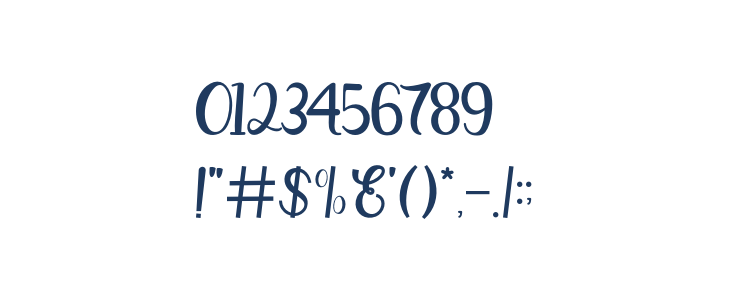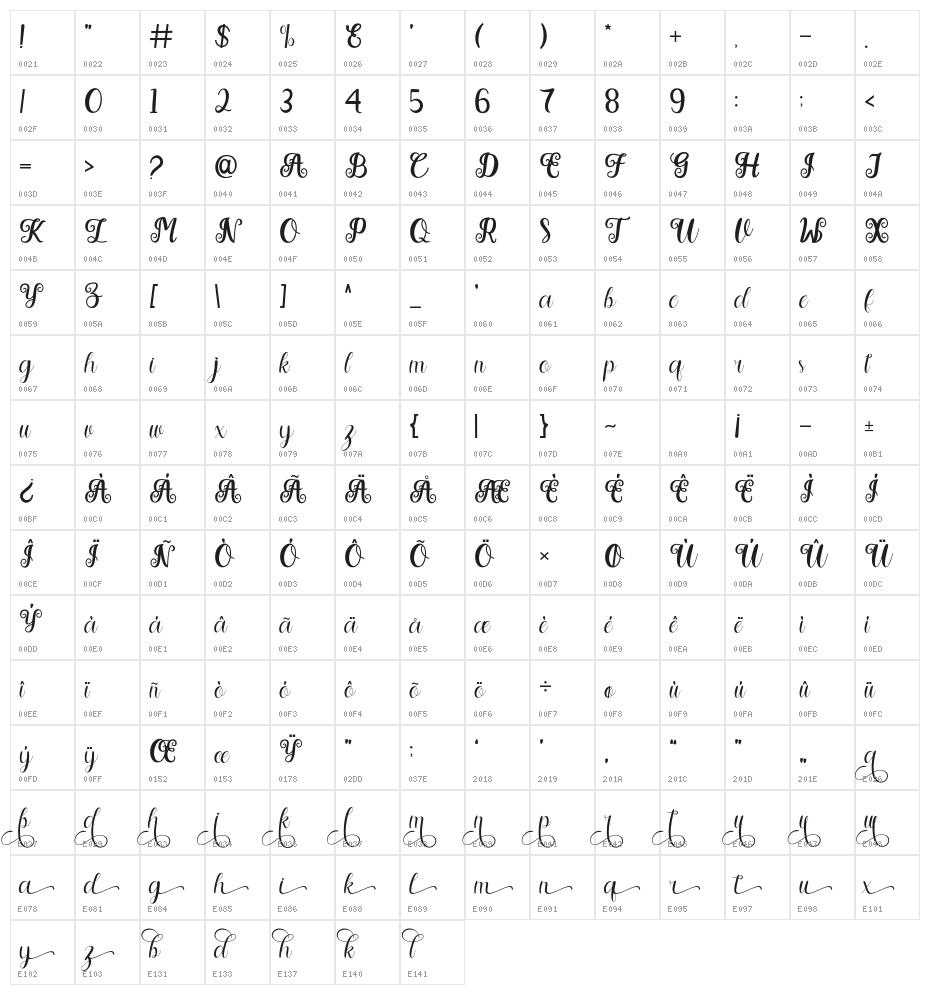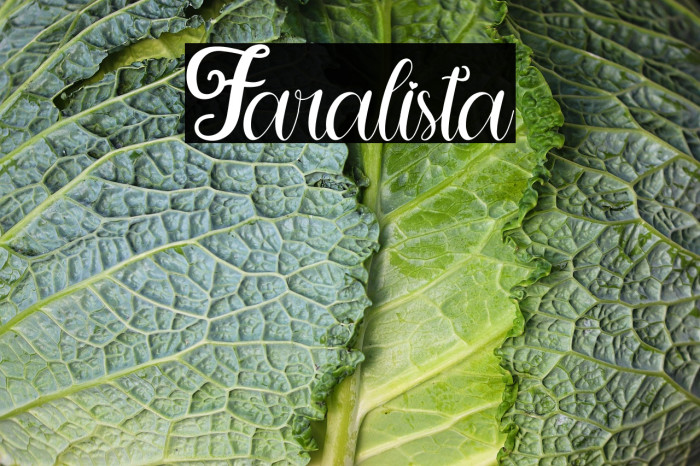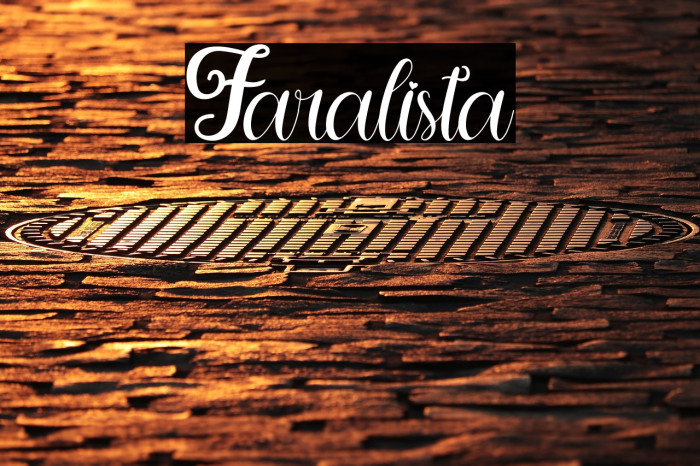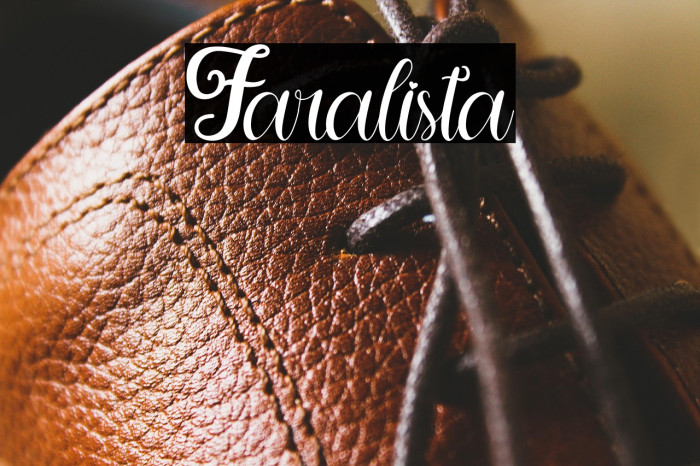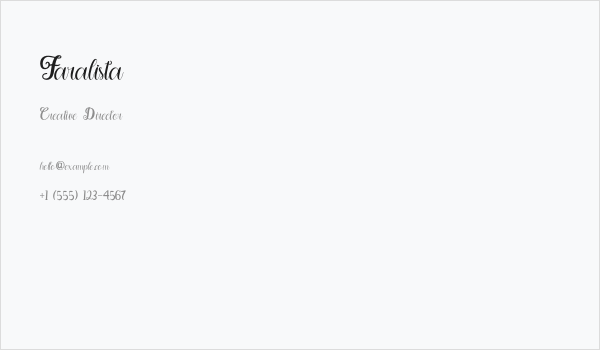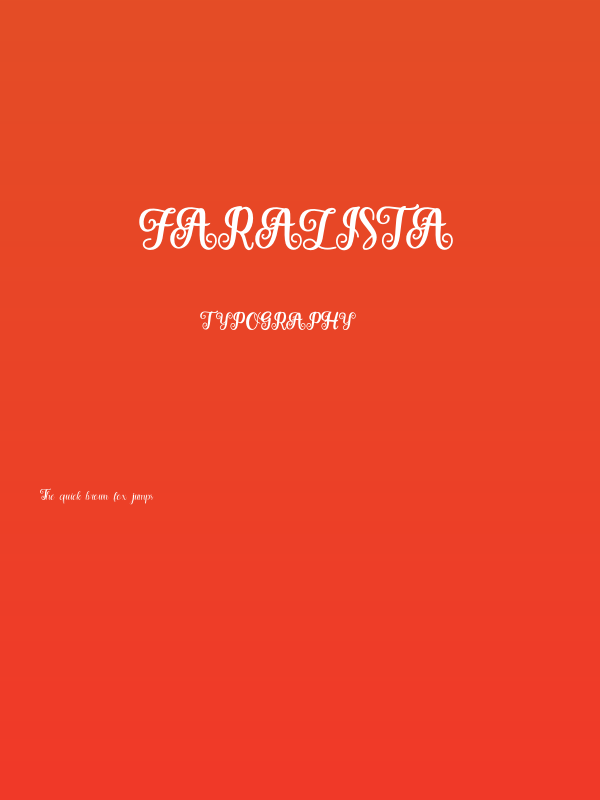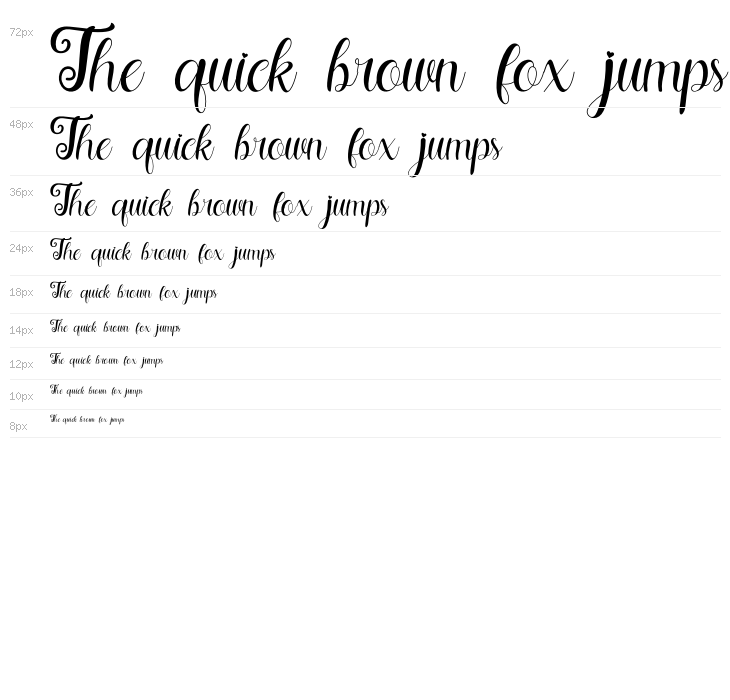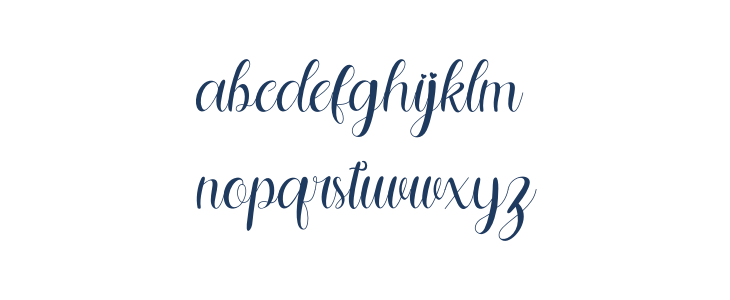
Faralista Font
Faralista Description
This elegant script font features a flowing, cursive style with intricate swirls and loops, particularly in the uppercase letters. The lowercase letters maintain a consistent, graceful curve that complements the ornate uppercase. The numerals are bold and slightly more straightforward, providing a nice contrast to the decorative letters. Special characters are designed with the same attention to detail, making them blend seamlessly with the rest of the font. This font is perfect for adding a touch of sophistication and flair to any design project.